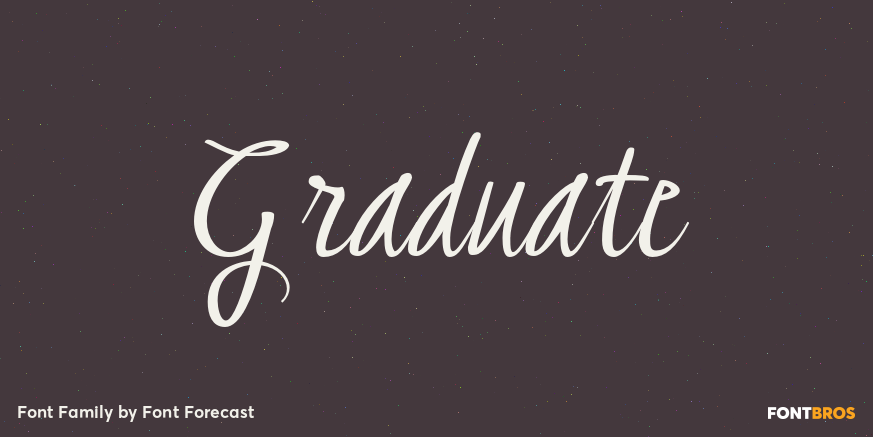
Graduate
Graduate Script is a contemporary calligraphic script. With over 825 glyphs Graduate Script can be dressed up or down, to enliven its style. You can add curls to beginning and end of any lowercase letter, or even in between them. Alternates for both upper…